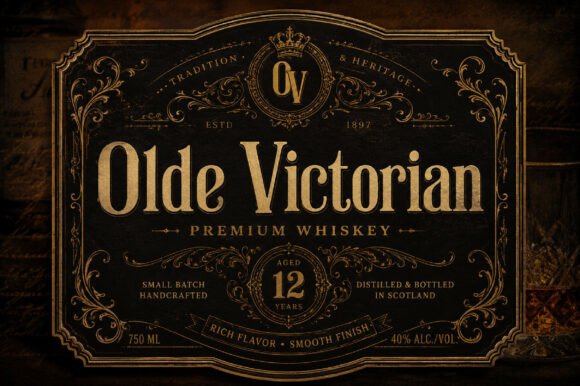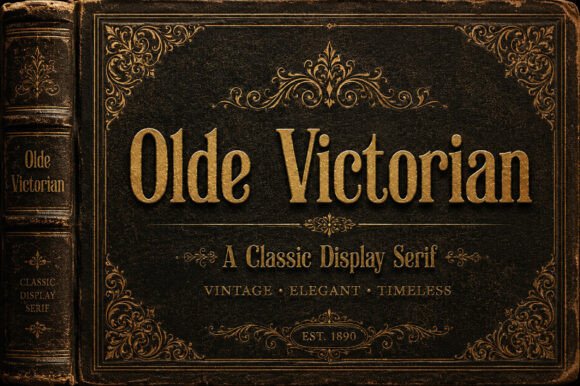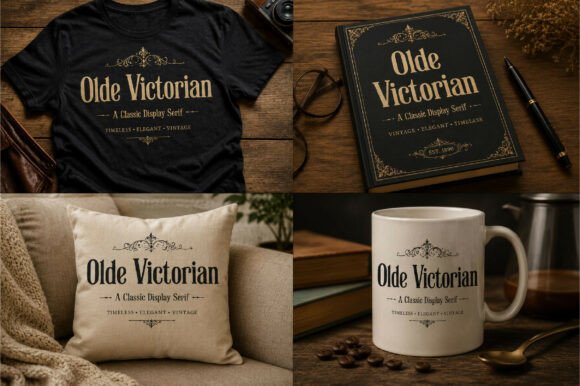
Introduction to Olde Victorian Font Font
Fonts play a crucial role in design, and the Olde Victorian Font font is a typeface that brings both character and versatility to any project. Whether you’re working on a branding project, a website, or a print design, the Olde Victorian Font font offers a unique style that can elevate your work.
Olde Victorian: A Classic Display Serif Step into an era of refined sophistication with Olde Victorian, a classic display serif designed for timeless visual storytelling.
This font features elegant, high-contrast strokes and rhythmic, rounded terminals that radiate a sense of 19th-century prestige and artisanal excellence Its polished visual weight and decorative posture make it an extraordinary choice for luxury boutique branding, high-end spirits labels, bespoke event invitations, and antique-inspired editorial headers.
Key Features of Olde Victorian Font Font
Why Choose Olde Victorian Font Font?
The Olde Victorian Font font is more than just a typeface – it’s a design tool that helps you communicate your message with style and clarity. Its unique character set and versatile design make it suitable for a wide range of applications, from elegant invitations to bold headlines.
With its carefully crafted letterforms and balanced proportions, the Olde Victorian Font font ensures readability and visual appeal across all mediums.
What makes Olde Victorian Font font special?
The Olde Victorian Font font stands out with its unique design, exceptional readability, and versatility across various design applications.